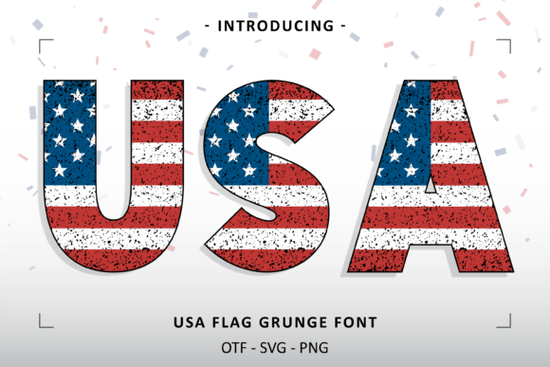
The USA Flag Grunge Font is a distressed, retro-style typeface that wraps every letter in an unmistakable American flag texture. If you're designing for Memorial Day, the 4th of July, or any patriotic occasion, this font brings a bold, worn-in look that catches the eye right away. It's built for designers, crafters, print-on-demand sellers, and small business owners who want their text to stand out without piling on extra graphics.
What Makes a Grunge Flag Font Different From Other Patriotic Fonts?
Most patriotic fonts stick to clean lines and standard shapes. USA Flag Grunge Font takes a different approach. Every character has a distressed, weathered texture that looks like an American flag rippling across your text. The grunge effect gives designs a raw, vintage energy almost like a screen print that's been through years of wear.
This style works best when you want your design to feel less polished and more expressive. Think vintage t-shirts, faded bumper stickers, or old-school rally posters. That's the mood this font delivers.
What Kinds of Projects Work Best With This Font?
A distressed font like this one has a surprisingly wide range of uses:
- T-shirts and apparel Patriotic merch sells well on Etsy, Redbubble, and Merch by Amazon, especially during summer months.
- Social media graphics Create holiday-themed posts, banners, and story templates that stop the scroll.
- Book covers and chapter headings Add a rugged, all-American vibe to titles and section breaks.
- Restaurant menus and signage Perfect for BBQ joints, diners, or any brand with a classic American feel.
- Greeting cards and invitations Works well for 4th of July party invites or Veterans Day thank-you cards.
- Stickers, decals, and labels The bold lettering holds up well across different sizes and materials.
- Blog headers and web content Give seasonal content a strong visual identity.
If you sell print-on-demand products, even a simple layout with this font can turn into a design that performs well during patriotic holidays.
How Does It Compare to Other Red, White, and Blue Fonts?
There's no shortage of flag-themed typefaces, but not all of them deliver the same grunge quality. The USA Retro Stars Font leans toward a cleaner retro style with star accents a solid choice if you want something more polished. You can browse it alongside other retro star-themed colorful fonts for comparison.
The USA Flag Grunge Font, on the other hand, goes all-in on the distressed, rough-around-the-edges look. Choosing between them depends on the mood of your project. Worn, vintage, and bold? Go with the grunge font. Clean with a retro twist? The stars font is a better fit.
Tips for Working With Distressed Typefaces
Grunge fonts look great, but they need a bit more care than clean typefaces. Keep these practical tips in mind:
- Keep your background simple. A busy background mixed with a textured font makes text hard to read. Solid colors or subtle textures work best.
- Use larger sizes when possible. Distressed details can disappear at small sizes. For t-shirts, posters, and banners, go big.
- Pair it with a clean secondary font. Use the grunge style for headlines and a simple sans-serif for body text. This contrast keeps designs readable.
- Experiment with color beyond the obvious. Red, white, and blue are natural choices, but this font also looks striking in gold, black, or even faded pastels.
- Adjust your letter spacing. Distressed fonts sometimes need extra kerning to keep letters from feeling crowded.